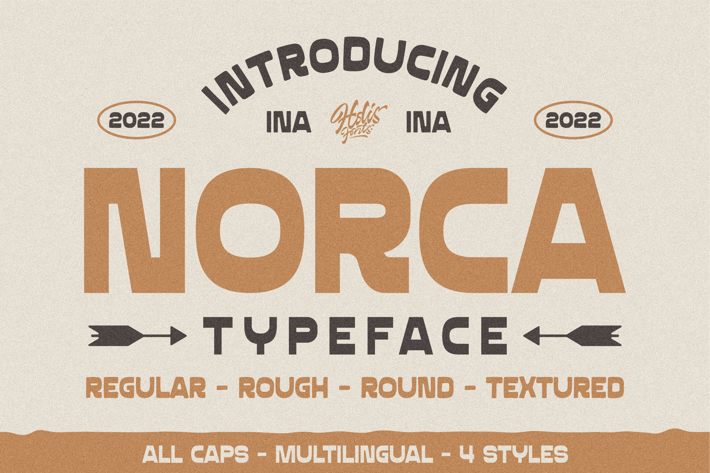
Norca Typeface
Norca is a typeface available in 4 types of styles, regular/clean, round, rough and textured. Available in all caps mode, suitable for designs with classic, vintage, and retro styles.
All caps
Numeral